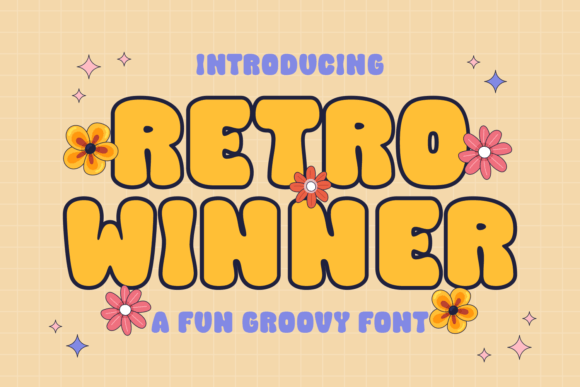
Dive into the world of Retro Winner, a display font that's simply irresistible! This charming display font exudes retro vibes with its adorably chubby letters, reminiscent of retro-style typography.
Retro Winner is your perfect companion for creating designs that burst with joy and personality. Its playful and groovy nature makes it ideal for posters, apparel, kids' t-shirts, headlines, banners, signage, invitations, and more. Imagine your designs coming to life with Retro Winner's infectious energy, captivating your audience and leaving them smiling.
With Retro Winner, you'll discover a font that's not just visually pleasing but also incredibly versatile. Its playful curves and bold strokes lend themselves beautifully to a wide range of design projects, from whimsical logos and branding to eye-catching social media graphics. Retro Winner has the power to transform your designs into unforgettable expressions of creativity.
Join the creative revolution with Retro Winner! This display font is not just a font; it's an invitation to embark on a journey of self-expression and visual storytelling. Its infectious charm will elevate your designs to new heights, leaving a lasting impression on your audience.
Don't settle for ordinary fonts; embrace the extraordinary with Retro Winner. Its delightful retro style and versatility will ignite your imagination and empower you to create designs that resonate with your audience. Let Retro Winner be your creative partner, guiding you towards designs that are both captivating and unforgettable.
Retro Winner is more than just a font; it's an experience. Its unique character will add a touch of magic to your designs, making them stand out from the crowd. Dare to be different, dare to be bold, and let Retro Winner take your creativity to new heights.